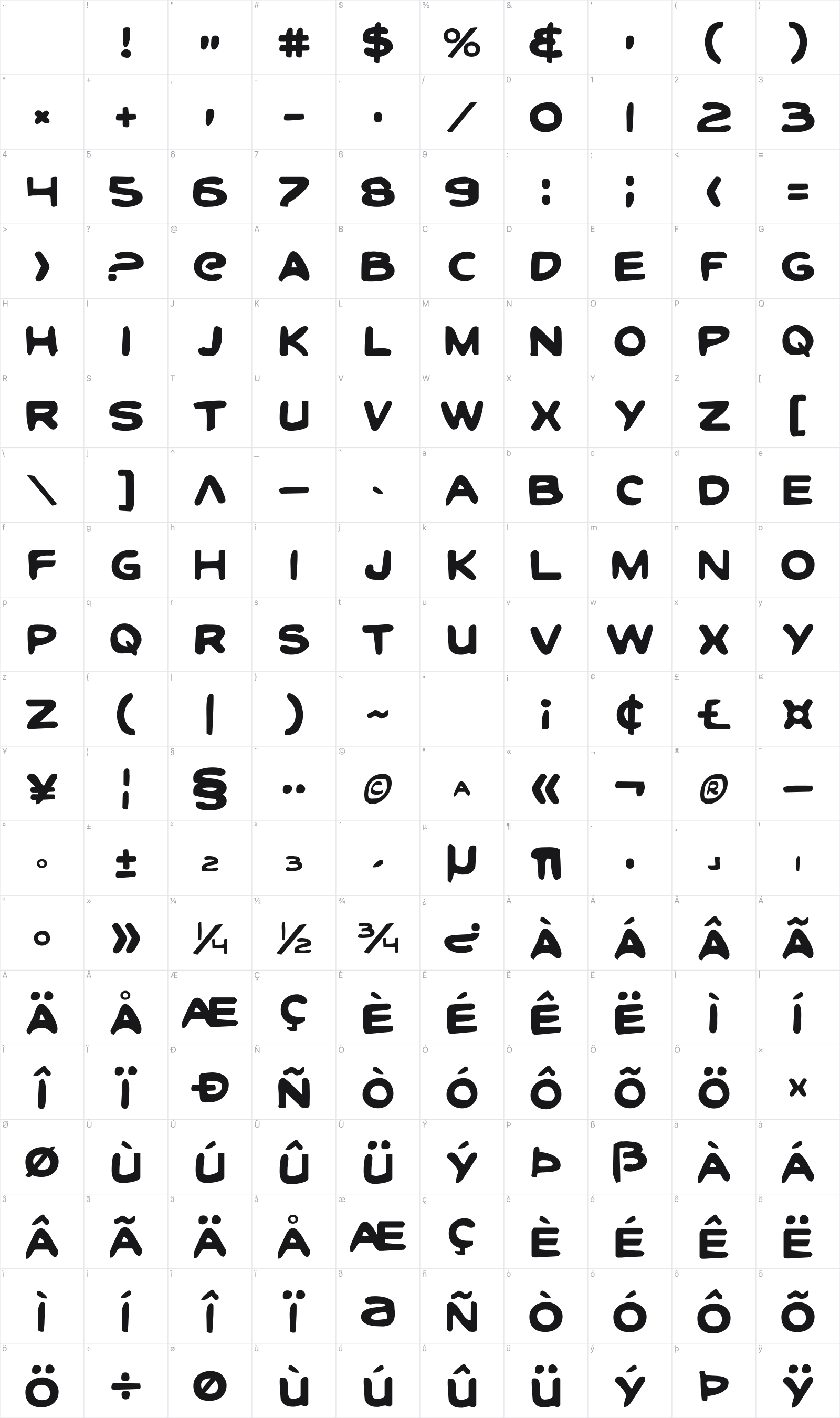
Toon Town Industrial
Toon Town Industrial is a bold, rounded comic display face from Iconian Fonts with thick, heavy letterforms that feel like they belong on a cartoon factory sign. The playful shapes keep things fun and readable, but the added weight gives it more punch than your typical cartoon font. Built for headlines, posters, kids' branding, and anywhere you want big, friendly letters that still hit hard.